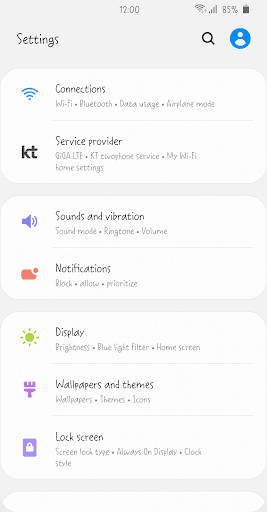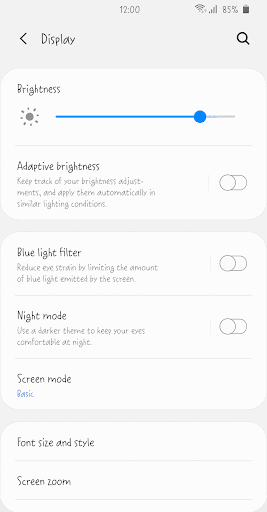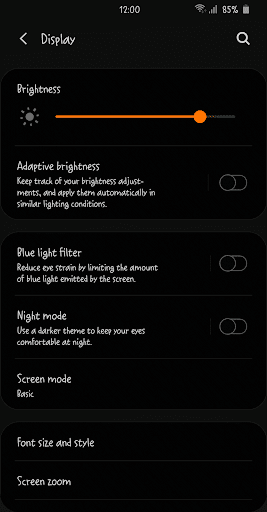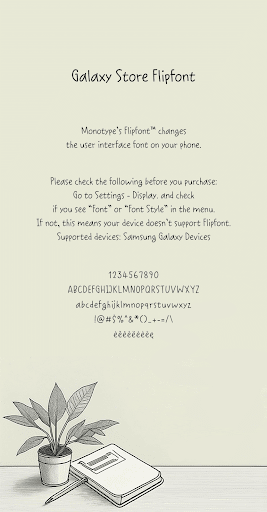
Nm DailyNote
Nm DailyNote is a lovely and cute font and has good readability. Customize your phone with this. Please try this font and leave your feedback.